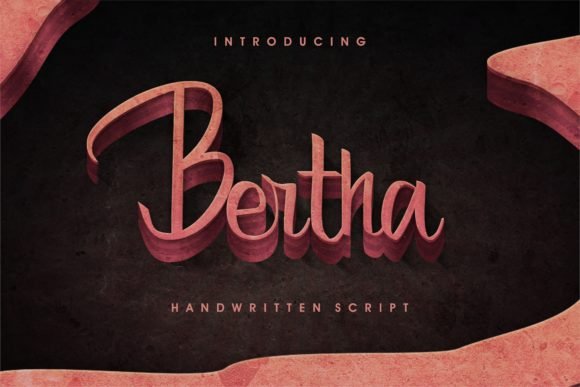
The Perfect Touch: Elevating Your Designs with the Bertha Font
Have you ever stared at a blank page, trying to find the perfect font to bring your design to life? You know, that moment when the cursor blinks impatiently, waiting for your creative spark to ignite? That’s exactly what happened to me when I first laid eyes on the Bertha Font. Its elegant, handwritten script seemed to whisper “luxury” and ” sophistication” in my ear.
The Bertha Font is more than just a beautiful font – it’s a game-changer for designers. With its refined feel and classic charm, it adds a touch of elegance to any design, whether it’s a wedding invitation, a logo, or a marketing brochure. Whether you’re a seasoned pro or a design newbie, the Bertha Font is an invaluable tool in your creative arsenal.
Bertha Font Key Features
- Unique Characteristics: Elegant, cursive script with swashes and flourishes, ideal for formal invitations, certificates, and wedding stationery
- Language Support: Supports multiple languages, including Latin, Greek, and Cyrillic alphabets
- Font Style: Available in Regular, Italic, and Swash styles for added versatility
Designer Review: Bertha Font
First of all, I want to say that I really like the unique and quirky style of Bertha Font. The font is a great representation of a vintage, handwritten look that’s perfect for adding a touch of personality to your designs. ✨ The varied line widths and subtle imperfections give it a truly hand-drawn feel that’s hard to replicate with digital tools.
- ✨ The font’s unique style is perfect for adding a personal touch to designs.
- ✨ The varied line widths and imperfections give it a truly hand-drawn feel.
- ✨ The font is great for use in titles, headings, and other display text.
However, there are a few limitations to consider. ⚠️ The font can be difficult to read in smaller sizes, and the imperfections that make it look so charming can also make it hard to use in situations where clarity is crucial. Additionally, the font may not be suitable for use in body text, as it can be quite tiring to read in large quantities.
Overall, I think Bertha Font is a great choice for designers who want to add a touch of personality to their designs. While it may have some limitations, its unique style and hand-drawn feel make it a great addition to any design library.
Getting the Most Out of Bertha Font
To get the most out of Bertha Font, experiment with different font sizes, colors, and styles to create visually appealing designs. Use Bertha Font in combination with other fonts to create a unique and eye-catching look.
Bertha Font is commonly used for:
• Branding and logos
• Packaging design
• Social media graphics
• Print materials